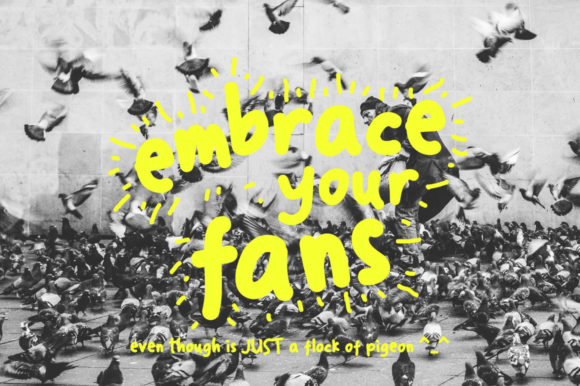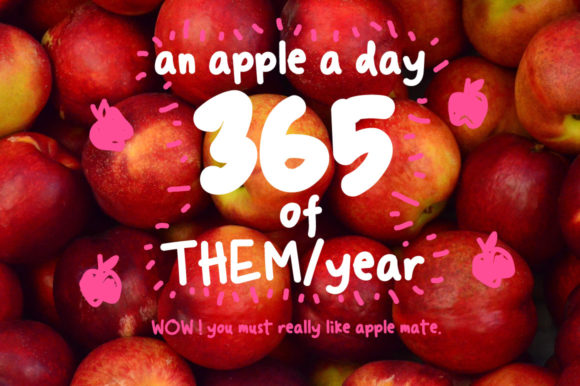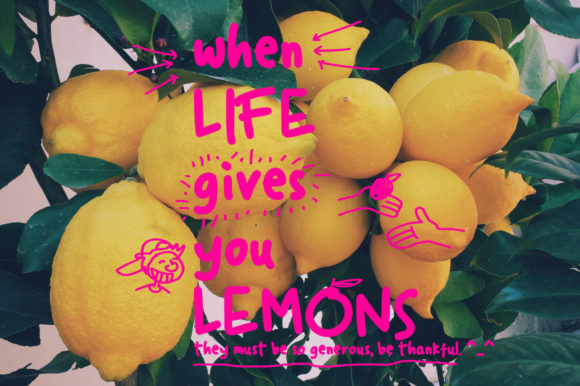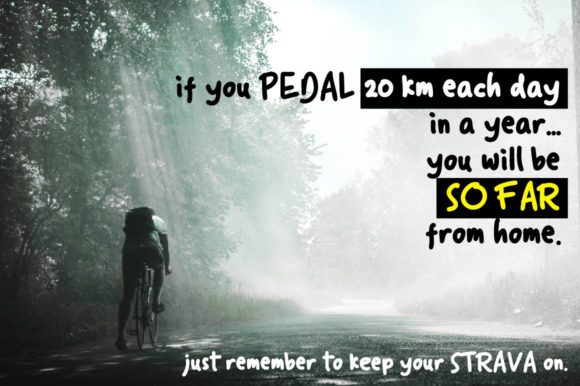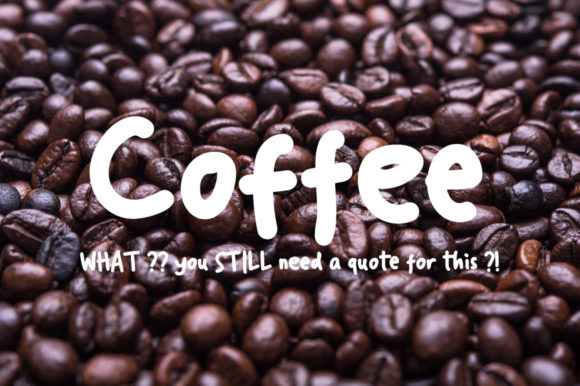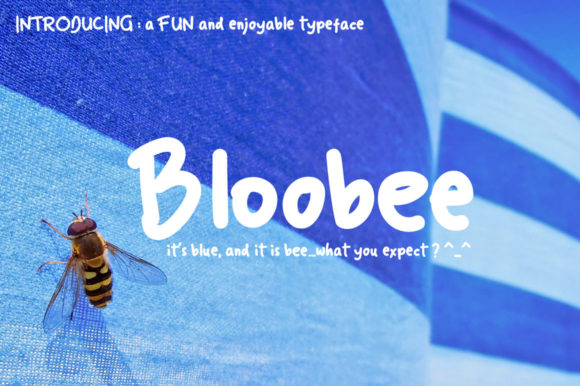
Bloobee Font
About Bloobee Font
The Bloobee is a fresh, enjoyable typeface. It has a light bounce on every letter which gives an energetic and friendly feel to every word.